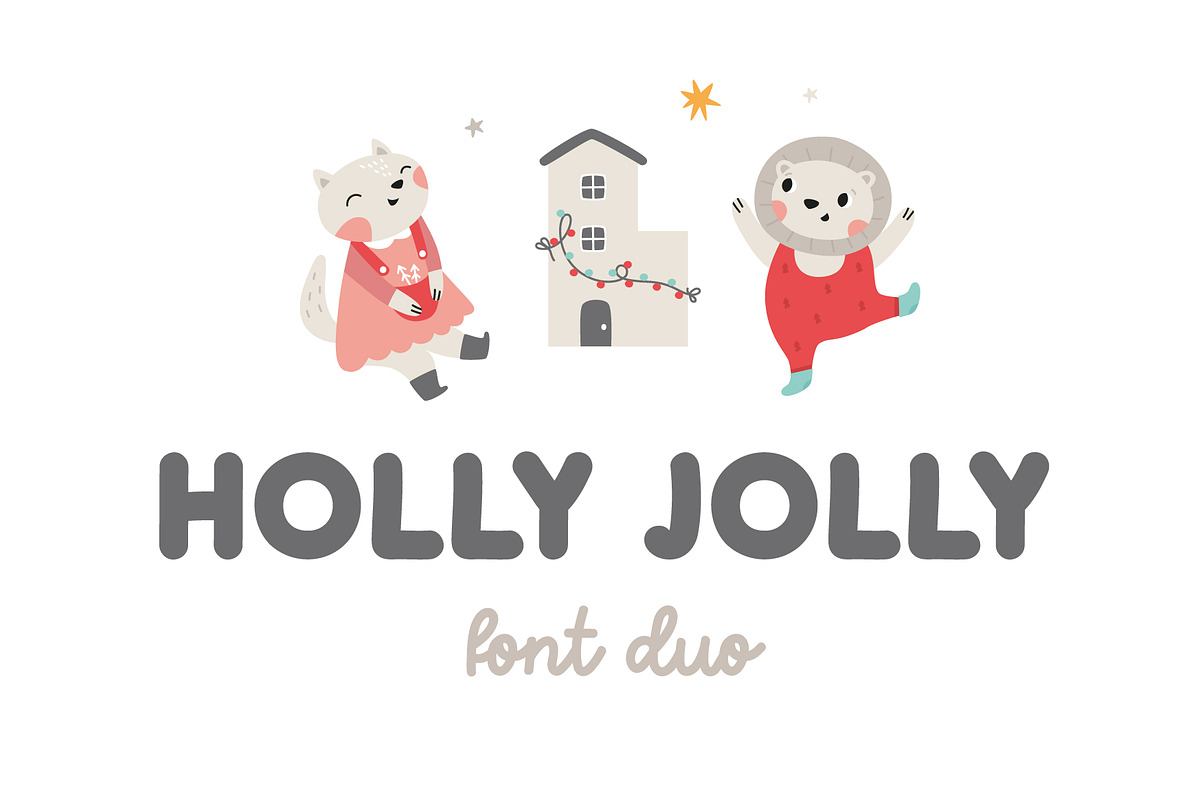
Holly Jolly | Font duo Free Download
Holly Jolly – Font Duo Free Download is a festive and fun-loving typeface pair designed to bring holiday cheer and playful charm to your seasonal projects. Please note, you are required to purchase this font for commercial use. It is available for free download for testing and personal projects only.
Featuring a whimsical script and a bold sans serif, Holly Jolly is perfect for Christmas cards, gift tags, event posters, social media posts, children’s designs, and holiday-themed branding. The duo works beautifully together to create joyful, eye-catching compositions full of warmth and personality.